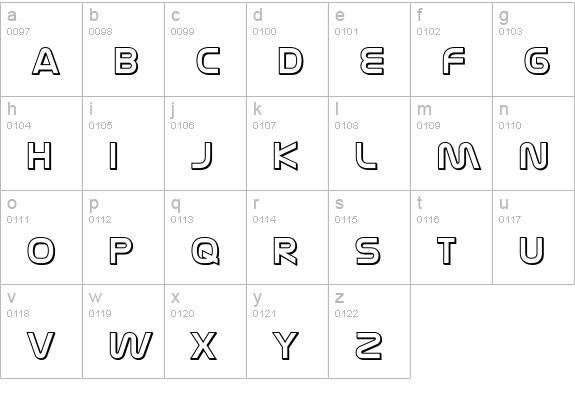
Nasalization 3D Font Details
Nasalization 3D font is a striking and modern typeface that will make your designs stand out with its three-dimensional effect. This font exudes a futuristic and edgy vibe, perfect for projects that require a sleek and contemporary look. The geometric shapes and sharp angles of Nasalization 3D font give it a bold and impactful presence on any layout. And the best part? Nasalization 3D font is available for free download at FontsMarket.com! This means you can easily access this unique and eye-catching font to elevate your designs without any cost. Whether you're working on branding, advertising, or any creative project, Nasalization 3D font will add a touch of modernity and sophistication to your work. Download it now and start creating visually stunning designs that leave a lasting impression.